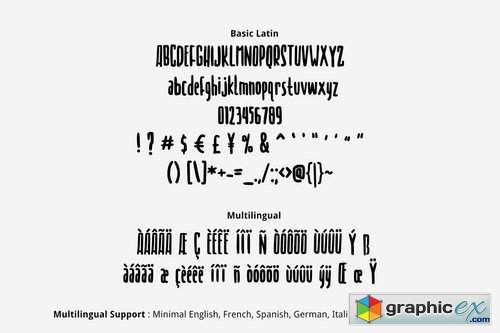
Mie Goreng Simple Font
Mie Goreng Font is lovely cute multipurpose handmade font, suitable for many project children book, quotes, logo , heading , title etc.